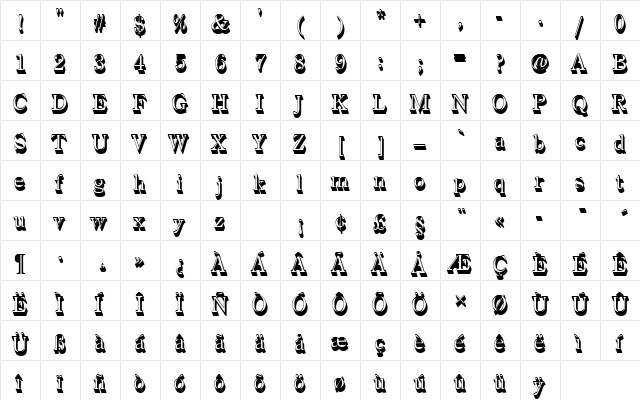
CenturyOldStyTRegSh1 Regular
Design Context for CenturyOldStyTRegSh1 Typeface
CenturyOldStyTRegSh1 offers clean, dependable letterforms without strong stylistic allegiance, making it a practical choice for designers who need flexibility.